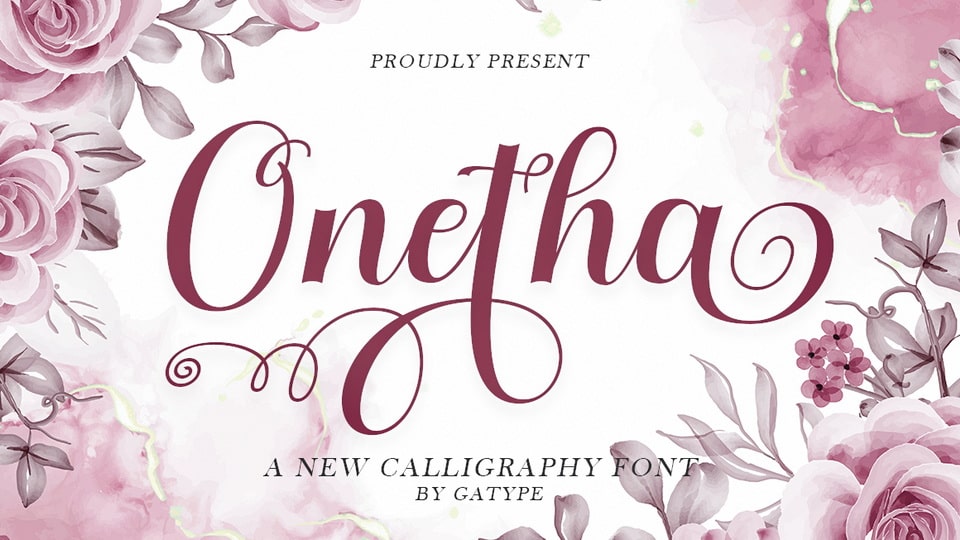
Download Onetha font, an elegant calligraphy typeface, casual and pretty with swashes, can used for various purposes, such as logo, product packaging, wedding invitations.